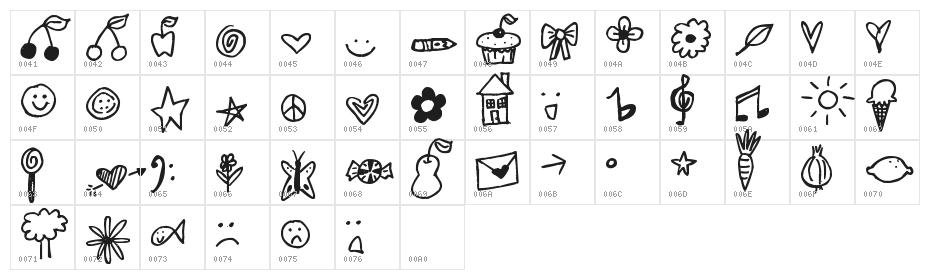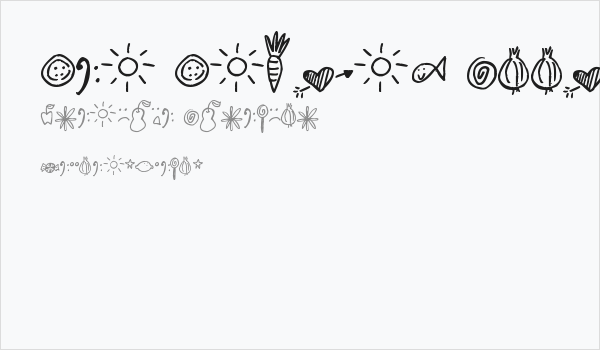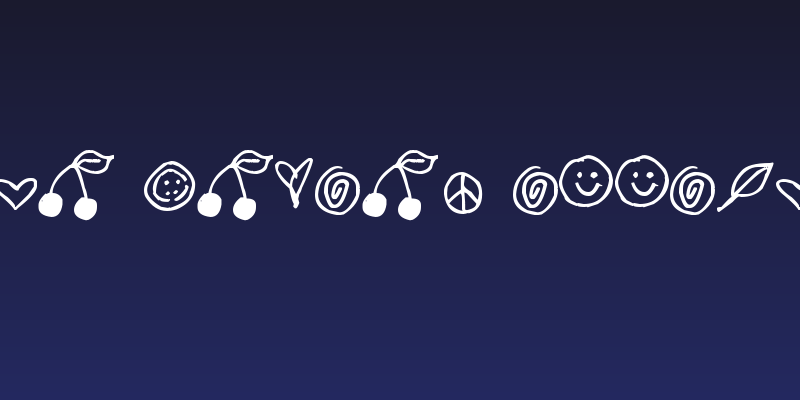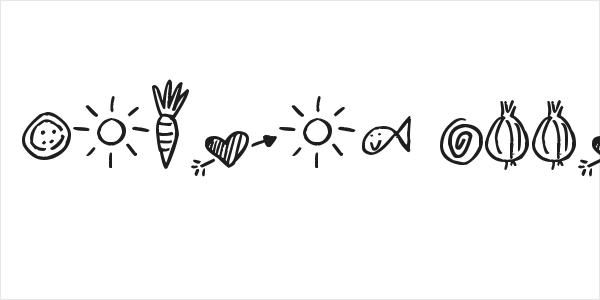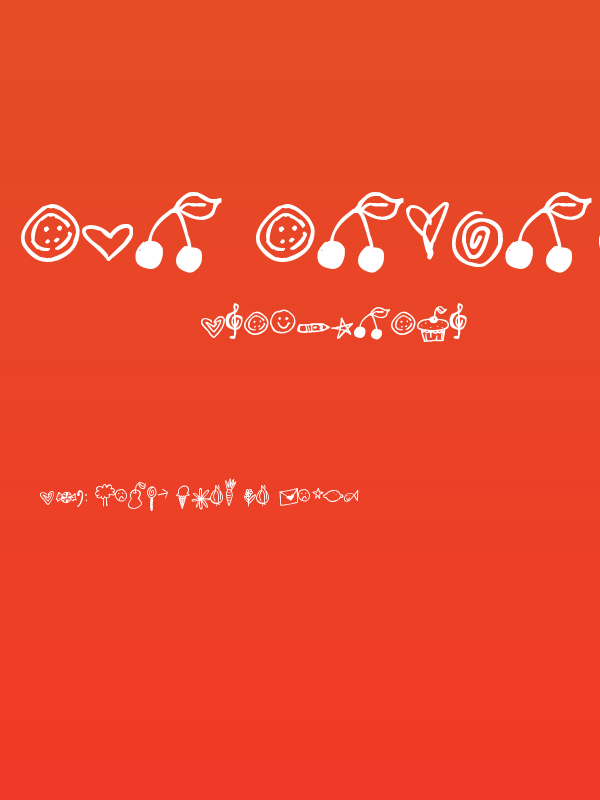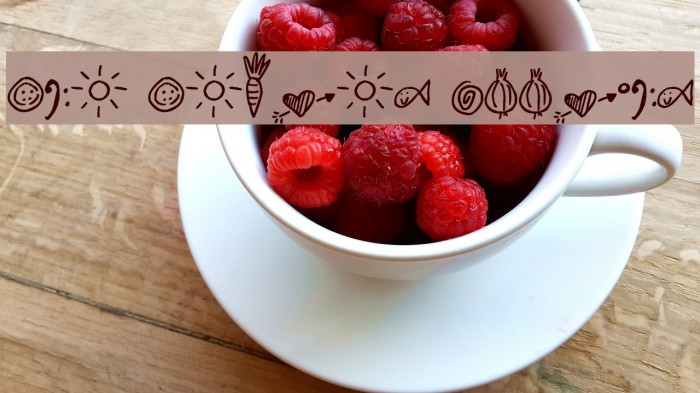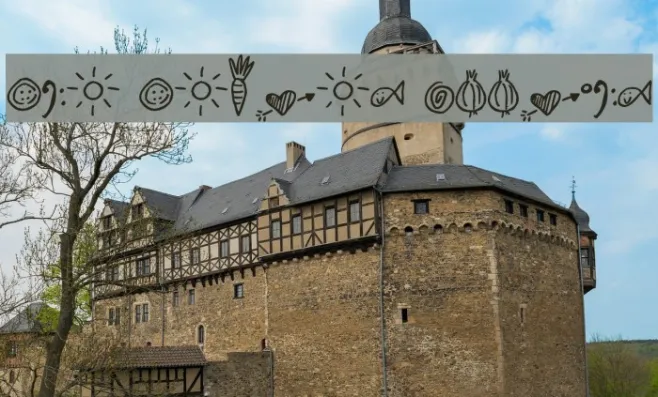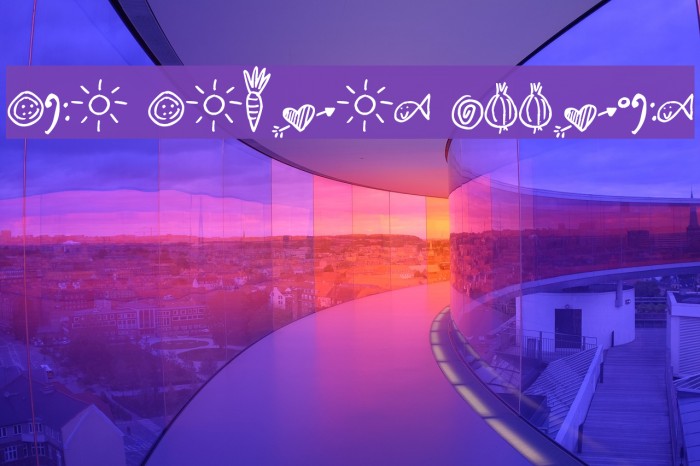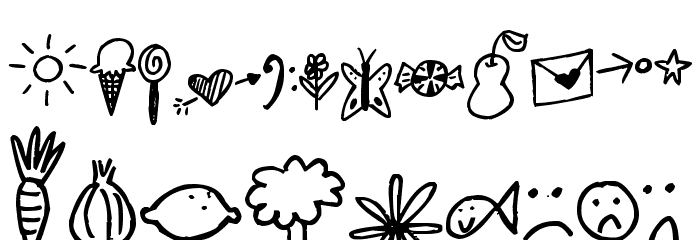
Pea Panda's Doodles Font
| Stile generale | Whimsical |
| Caso d'uso | Decorative elements, Illustrations |
| Progetti proposti | Ideal for children's books, greeting cards, scrapbooking, playful branding, and creative social media graphics. |